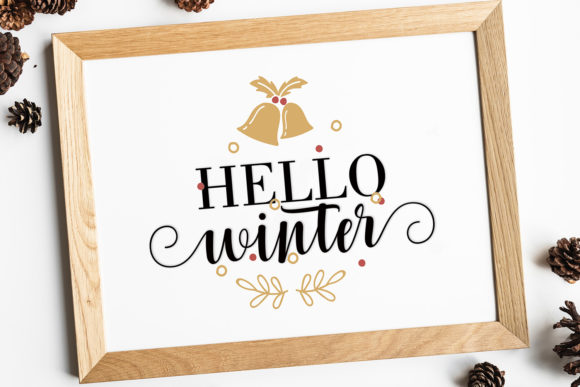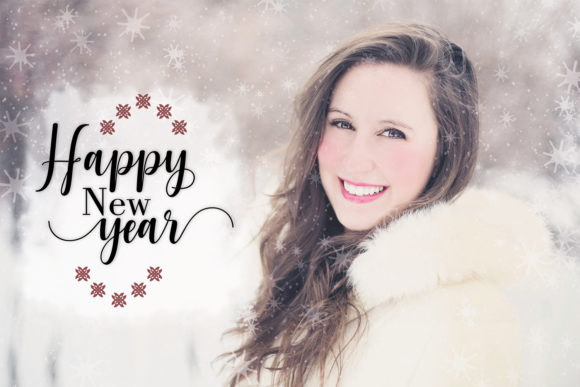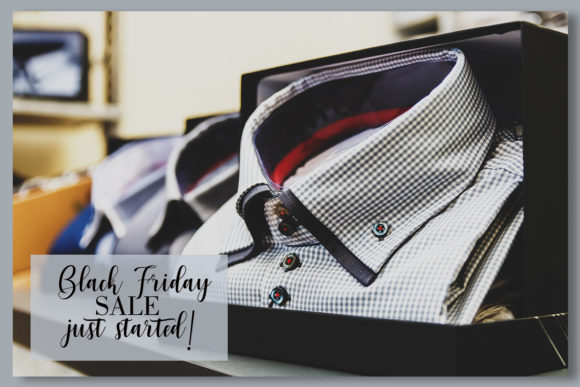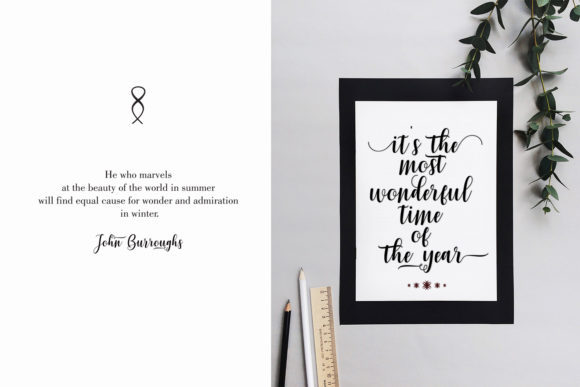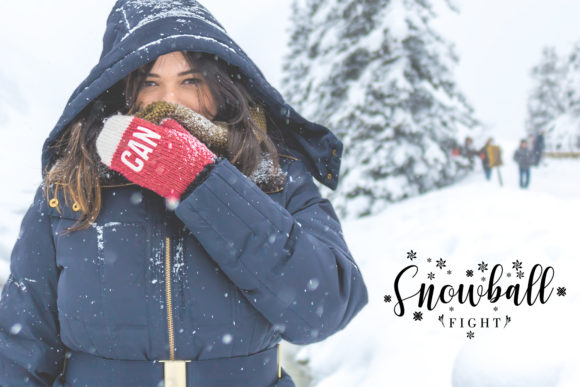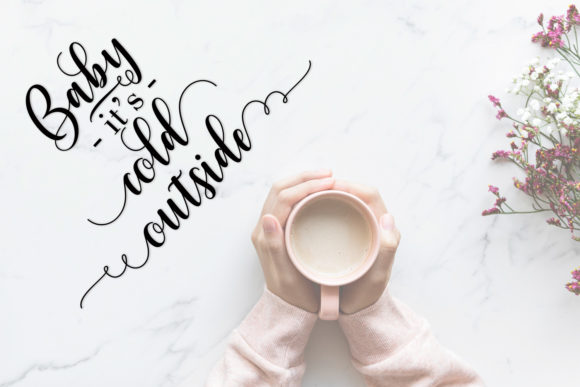
Introduction to Mettadilla Script Font
As a designer, you know the thrill of stumbling upon that perfect font that elevates your creative project from good to great. It’s like finding a missing piece of a puzzle that brings everything together. And that’s exactly what I’m excited to share with you today – a fresh discovery that’s sure to become your new favorite: the Mettadilla Script Font.
This beautiful, handmade calligraphy style font boasts a dancing baseline and elegant decorative characters that will add a touch of sophistication to any design. Whether you’re working on greeting cards, branding materials, business cards, quotes, posters, or anything in between, the Mettadilla Script Font is the perfect design resource to elevate your high-quality creations.
- High-quality, elegant script font suitable for creative projects and design resources.
- Features a unique, handwritten style with subtle flair and texture, adding a touch of sophistication to any design.
- Designed to be highly legible, making it perfect for use in titles, headings, and other prominent design elements.
I recently had the opportunity to work with the Mettadilla Script Font, and I’m excited to share my honest review with you. As a designer, I’m always on the lookout for high-quality design resources that can elevate my creative projects.
What works well: ✨ The Mettadilla Script Font is a beautiful, elegant script font that is perfect for adding a touch of sophistication to your designs. The font is highly customizable, and it looks great in a variety of contexts, from invitations to branding materials.
- High quality: The font is well-crafted and looks great at various sizes.
However, there are a few limitations: ⚠️ The font does not have a transparent background, which can make it difficult to use in certain contexts. Additionally, the font may not be suitable for very large or complex projects.
– Use it for headings and titles to add a touch of sophistication.
– Experiment with different font sizes and colors to achieve a balanced design.
– Combine the Mettadilla Script Font with other fonts to create a unique visual identity.
Common Use Cases for Mettadilla Script Font
The Mettadilla Script Font is ideal for a variety of projects, including:
– Wedding invitations and stationery
– Branding and logo design
– Digital products and e-books
– Social media graphics and promotional materials